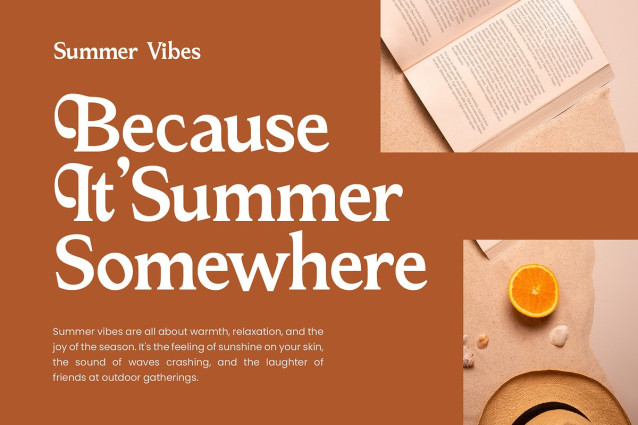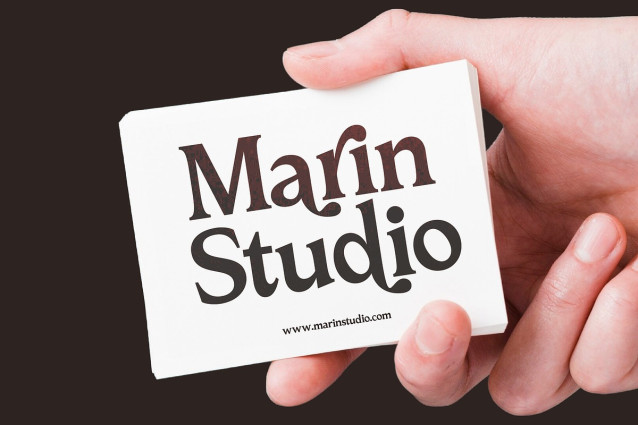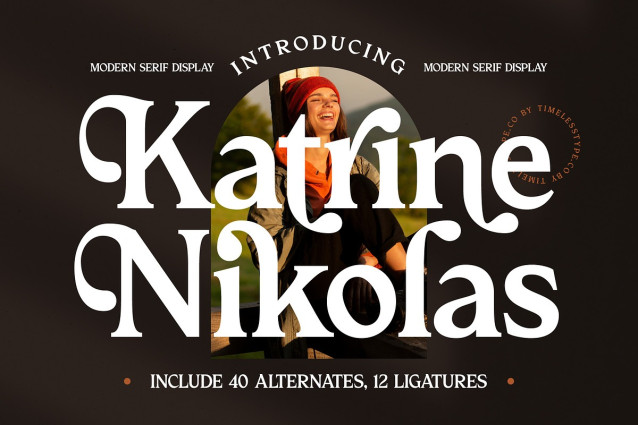
Katrine Nikolas Font
Katrine Nikolas Font – Modern Serif Display , from Timelesstype.Co , Suitable for any projects such as: logos, branding projects, homeware designs, product packaging, mugs, quotes, posters, shopping bags, t-shirts, book covers, name card, invitation cards, greeting cards, label, photography, watermark, special events, and all your other luxury and beautiful projects that need a Luxury Serif taste.